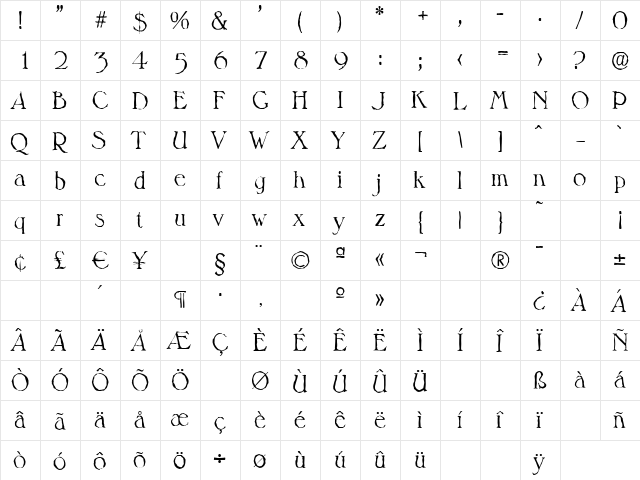
MelbourneAntique-Light Regular
Design Context for MelbourneAntique-Light Typeface
MelbourneAntique-Light has the warm character of retro typography — evoking diners, record sleeves, and the golden age of print advertising. Its slender proportions lend an understated elegance to any composition.
Perfect for vintage-inspired branding, retro packaging, nostalgia campaigns, and period-accurate editorial design.
Font Pairing: Combine MelbourneAntique-Light with a simple slab or neutral sans — period-accurate companions reinforce the vintage feel without competing for attention.
Pro Tip: Use MelbourneAntique-Light for headlines and pull quotes rather than body copy — its personality is best appreciated in short, focused bursts.